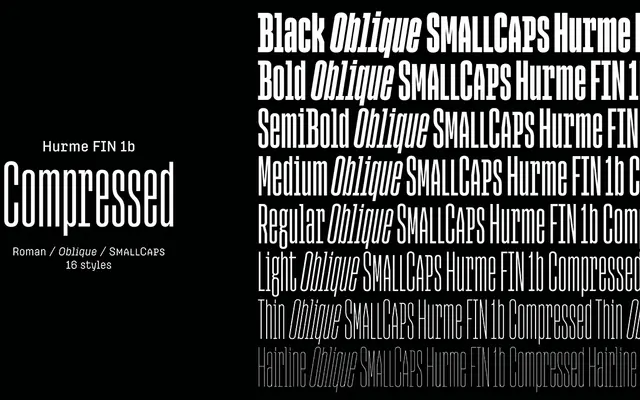
Hurme FIN 1b Compressed
A compressed, monolinear sans-serif with angular, monospace-influenced character alternates, running eight weights with obliques across a single compressed width.
Part of the large Hurme FIN system spanning nine widths from Expanded to Compressed, FIN 1b Compressed is distinguished from its FIN 1a counterpart by defaulting to angular, monospace-inspired characters with slab-serif details, positioning it as a transitional design between Hurme FIN Mono and the more conventional grotesque FIN 1a. Eight weights from Hairline to Black each come with an optically adjusted oblique, totalling sixteen styles in this compressed variant. Purchasing FIN 1b includes the equivalent FIN 1a weights at no extra cost, and both share the same OpenType feature set including small caps, oldstyle figures and stylistic alternates.
A monolinear sans-serif with horizontal stroke terminals, described by the foundry as sitting between a monospace and a grotesque, with angular and monospace-inspired characters featuring slab-serifs as default alternates.